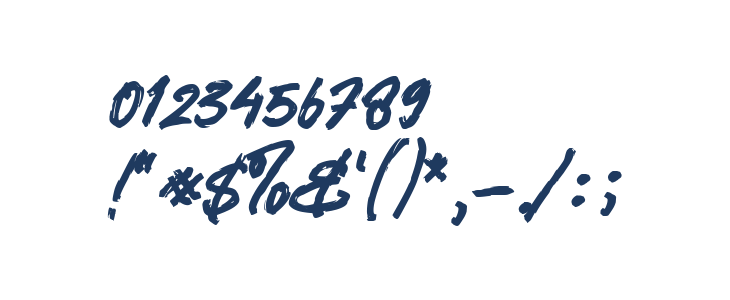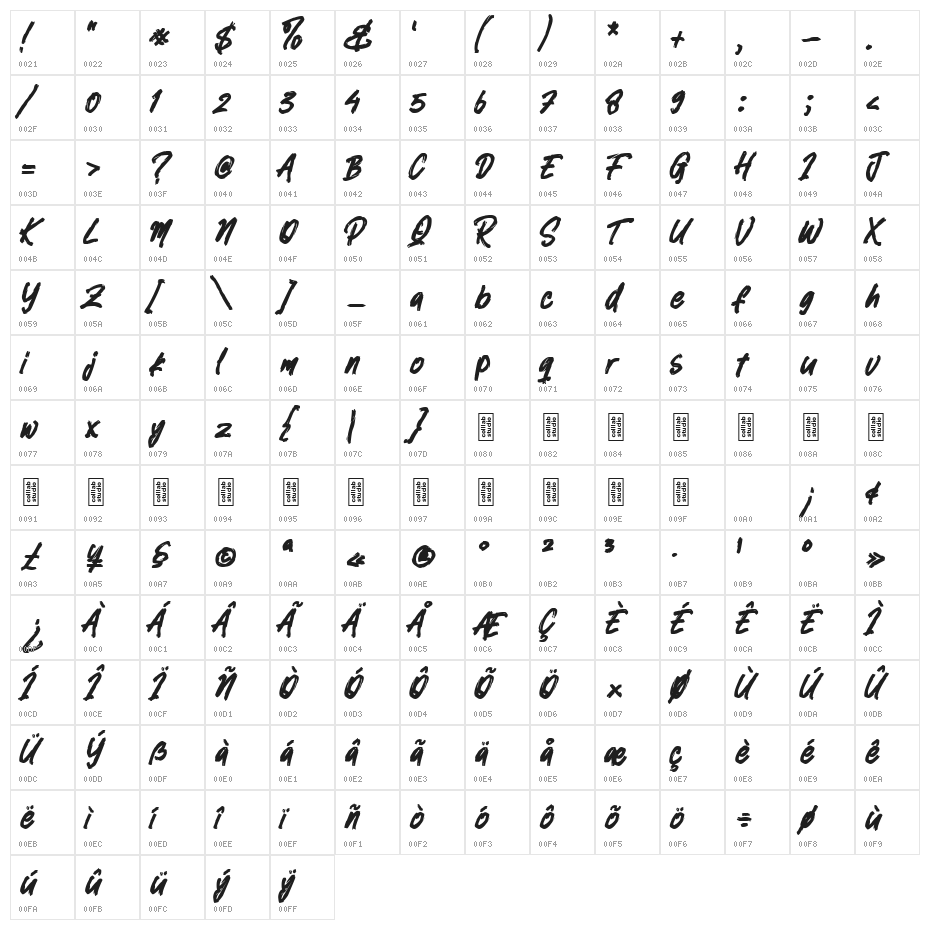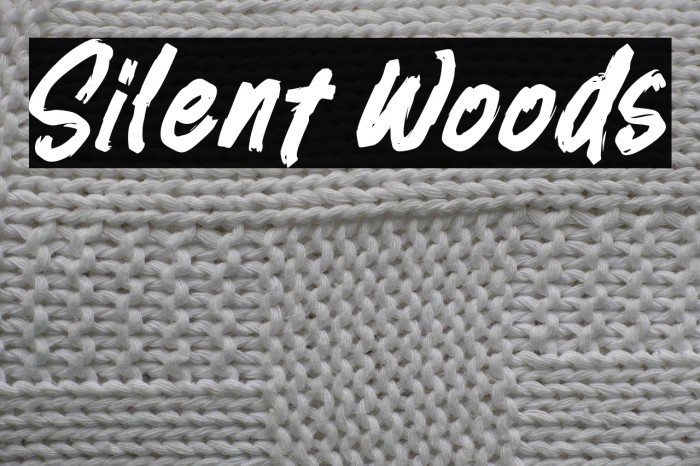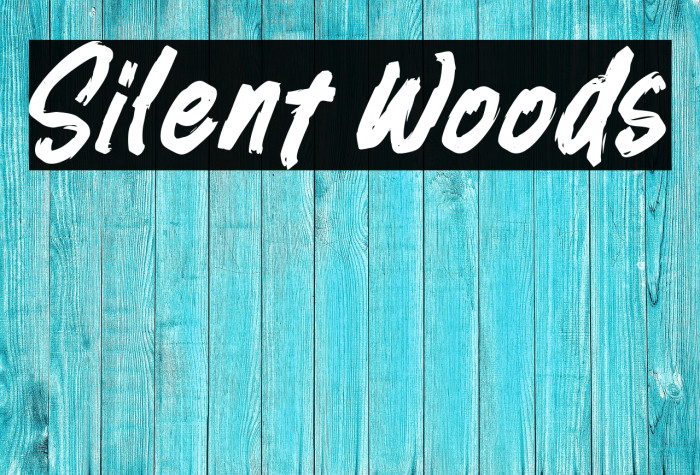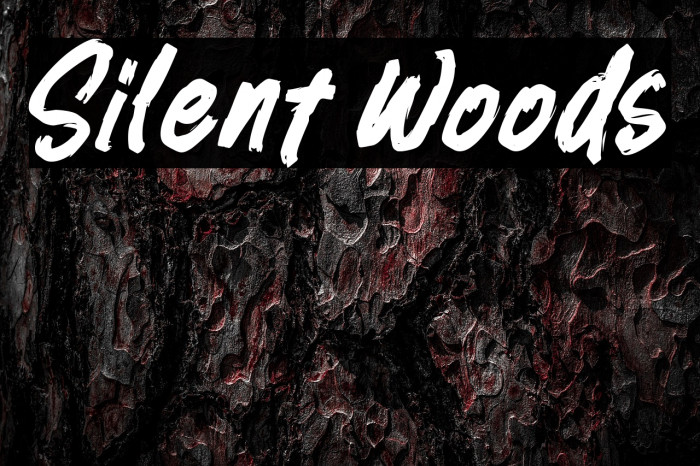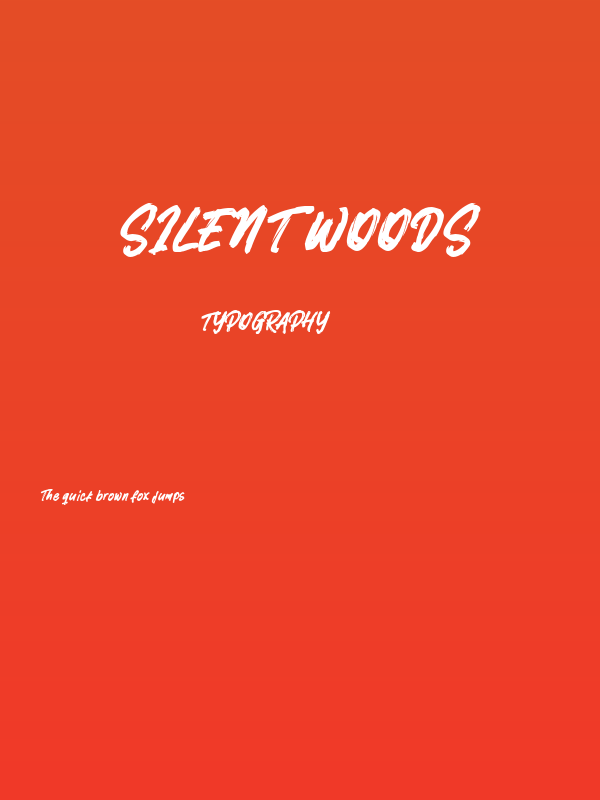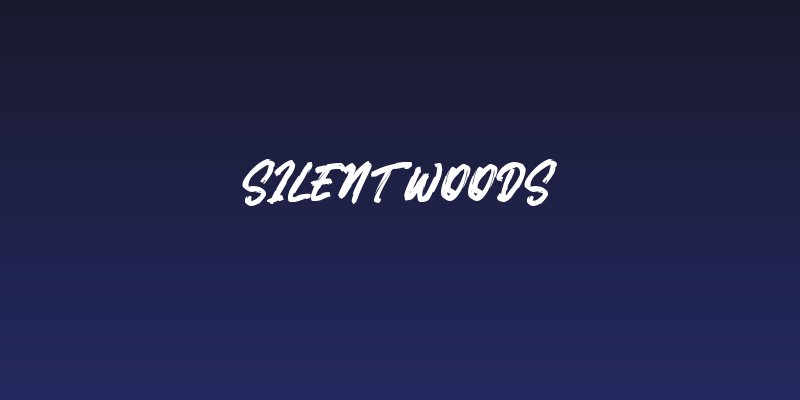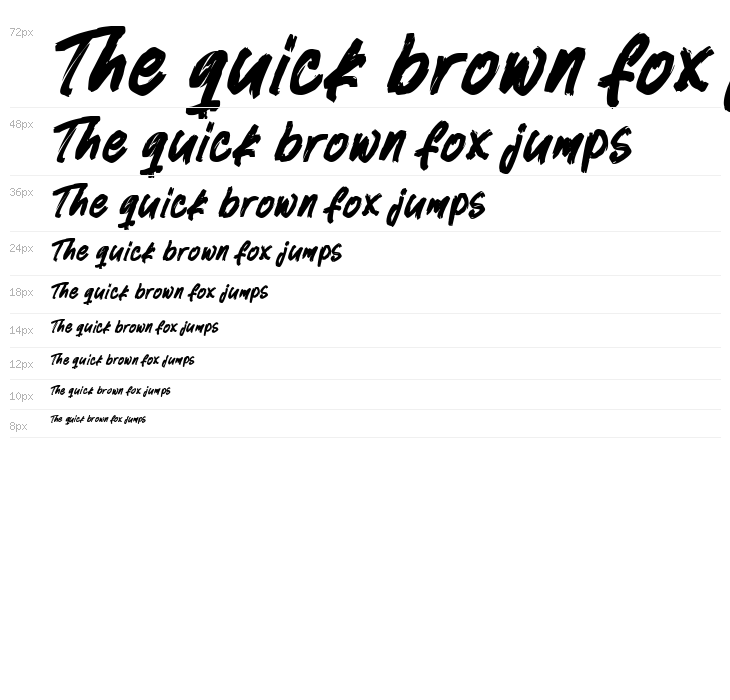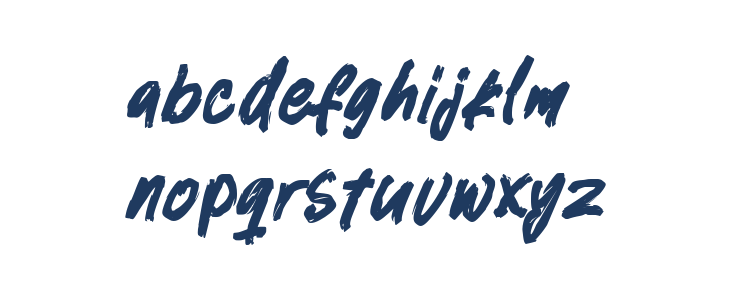
Silent Woods Font
Silent Woods Description
This font features a bold, expressive brush style with a dynamic and energetic appearance. The strokes are thick and uneven, giving it a hand-painted feel that is both artistic and spontaneous. Each character flows into the next with a sense of movement, creating a cohesive and lively text. The uppercase and lowercase letters maintain a consistent style, while the numbers and special characters complement the overall aesthetic. The font's rugged texture and bold presence make it ideal for projects that require a strong visual impact.
| Overall Style | Modern, Artistic |
| Proposed Projects | Ideal for posters, album covers, branding, and any design that requires a bold, artistic touch. |